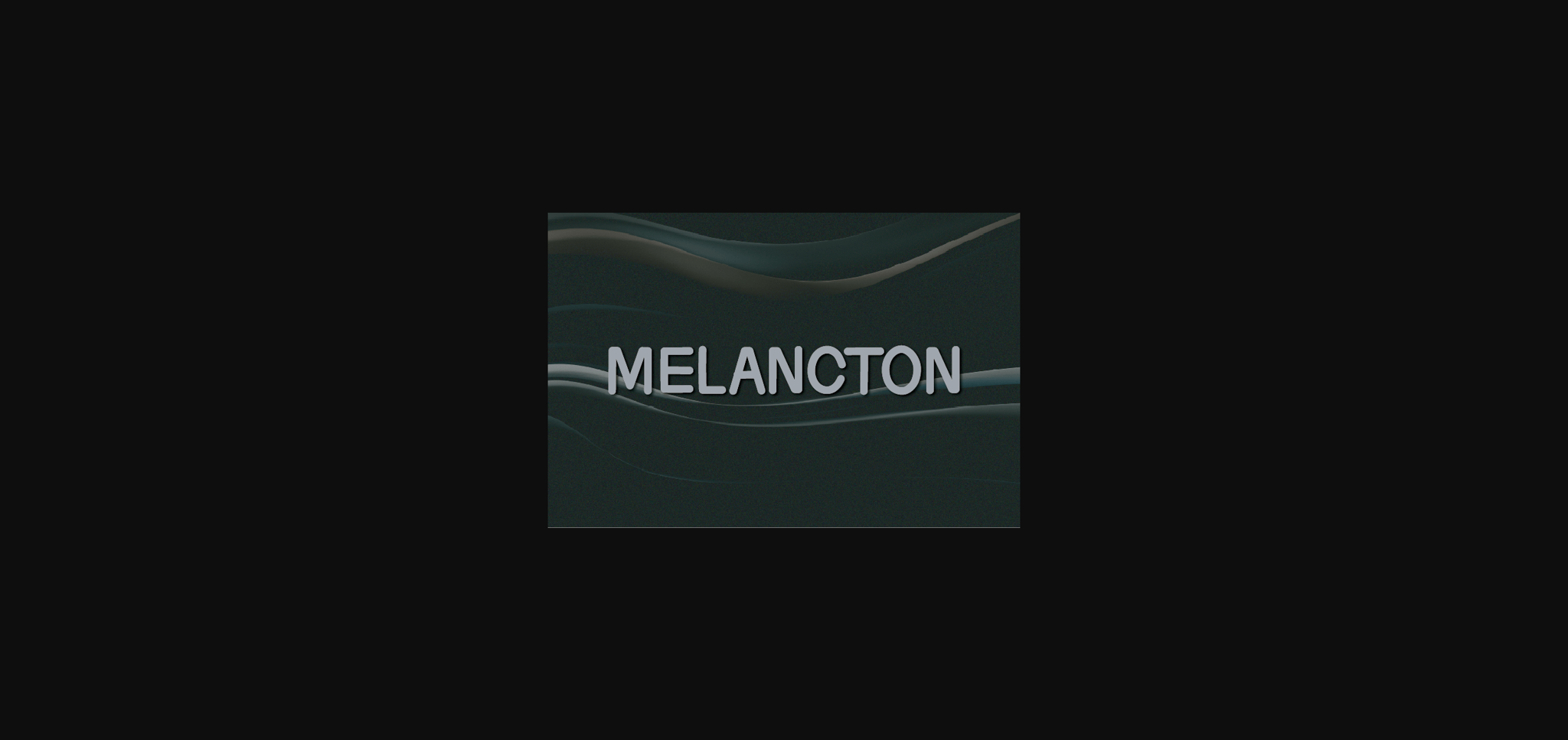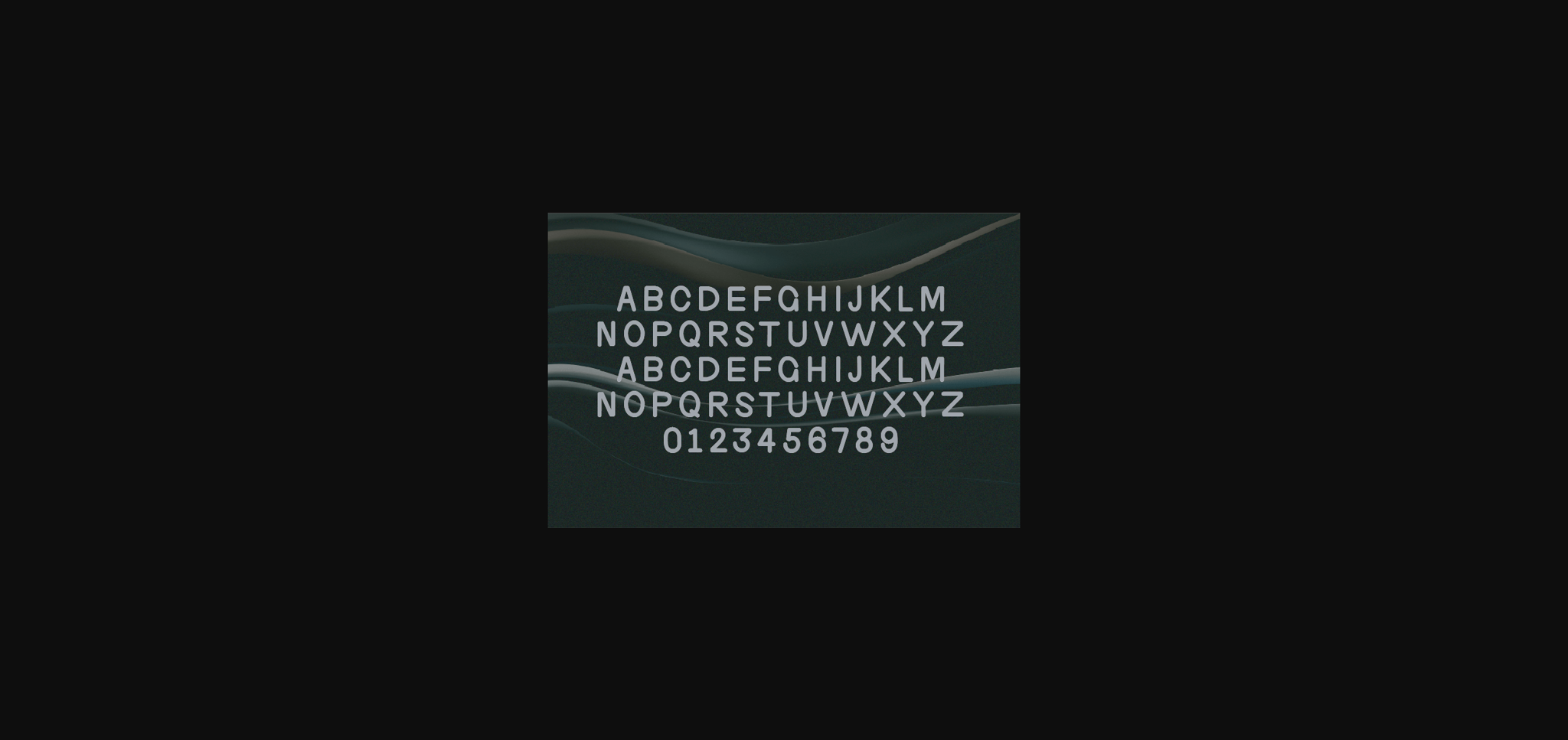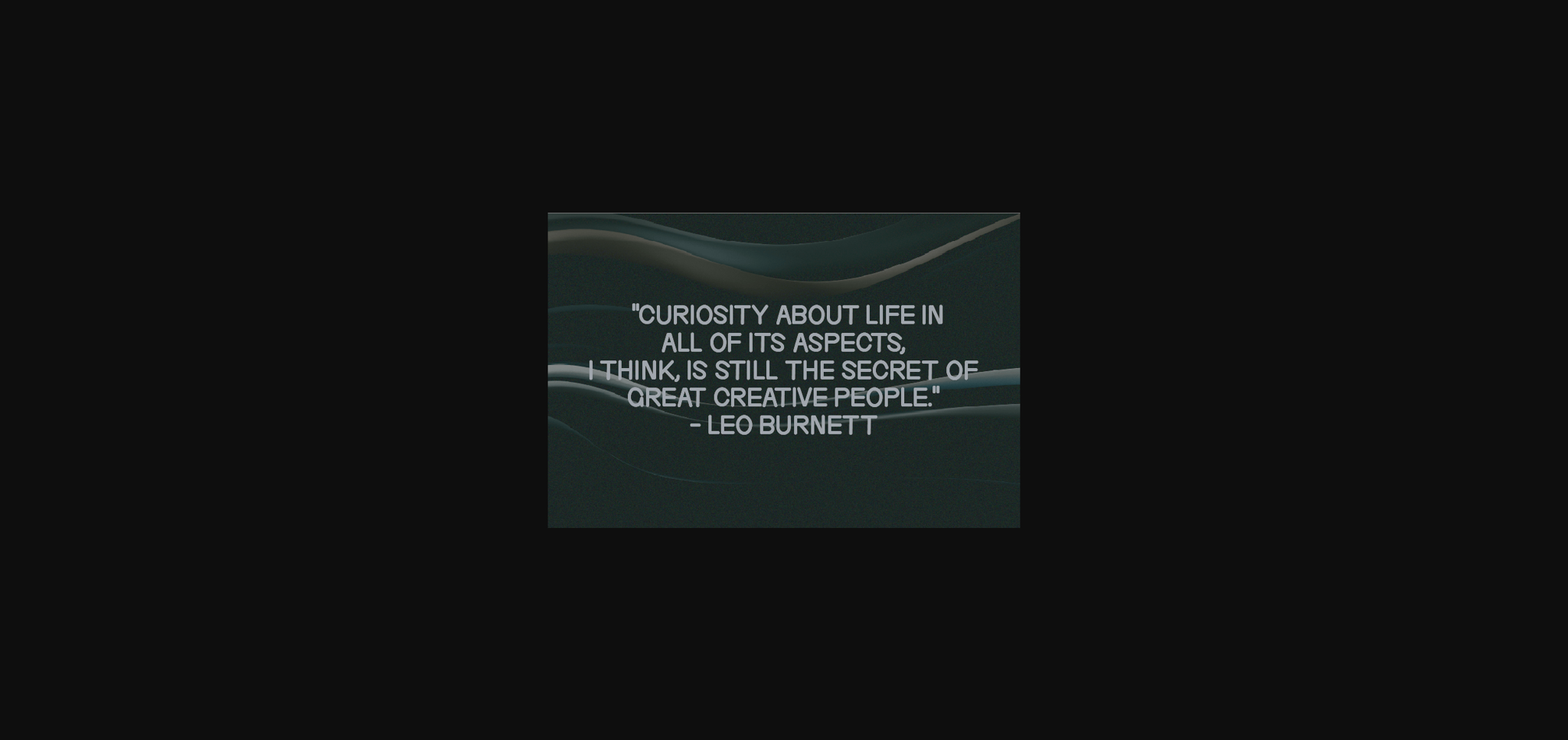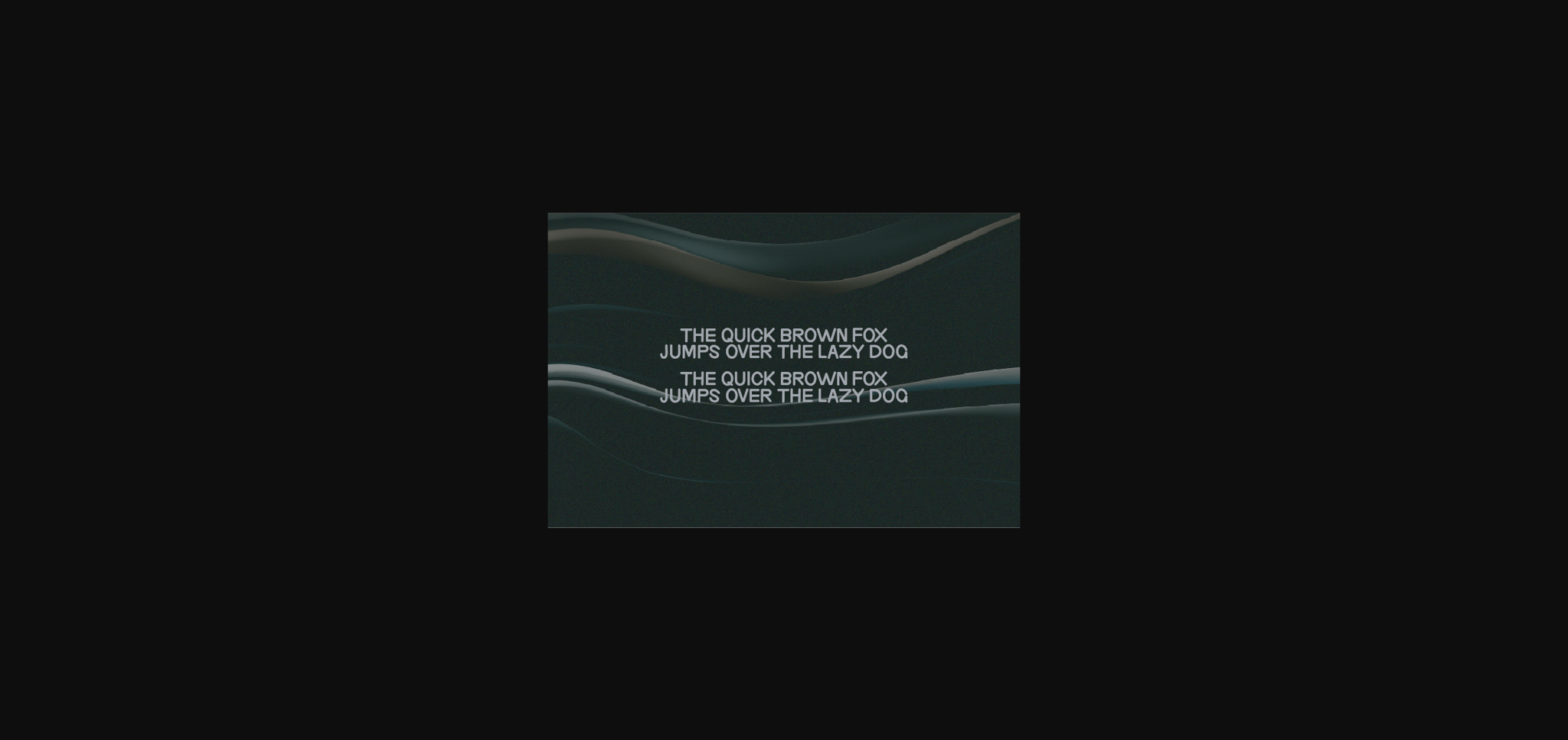
HomeSans Serif FontsMelancton Font Sans Serif Fonts Melancton Font FacebookXPinterestWhatsApp 1 of 6 ... Melancton Font Poster 2... Melancton Font Poster 3... Melancton Font Poster 4... Melancton Font Poster 5... Melancton Font Poster 6... About Melancton Font Melancton is a natural sans serif font made without changing a single node in each character’s indentation- this makes this font very interesting and unique. Perfect for quotes, notes, tees, and any product design. DOWNLOAD NOW People also explored Linley Font Quick Wearing Font Riberio Font Dusty Hotel Font Passe Font Rukino Font Hello Sunday Font Scarlett Font Beautiful Odete Font 337 0 TagsMelancton Font Previous articleHermeson FontNext articleKonstantinos Font LEAVE A REPLY Cancel reply Comment: Please enter your comment! Name:* Please enter your name here Email:* You have entered an incorrect email address! Please enter your email address here Website: Save my name, email, and website in this browser for the next time I comment. Personal Use Free Sunbright Font Personal Use Free Read more about this font Rare Knuckle Personal Use Free Read more about this font Hello Sarrah Personal Use Free Read more about this font Shkoder 1989 Personal Use Free Read more about this font BLOG Using Fonts in Digital Marketing: Tips to Strengthen Your Brand Identity In the realm of digital marketing, every visual element plays a crucial role in shaping a brand's identity, and fonts are no exception. The... Top 10 Handwritten Fonts That Elevate Your Designs Elegant Wedding Invitation Fonts – Handwritten & Script Fonts Modern Sans-Serif Fonts That Brands Love in 2025